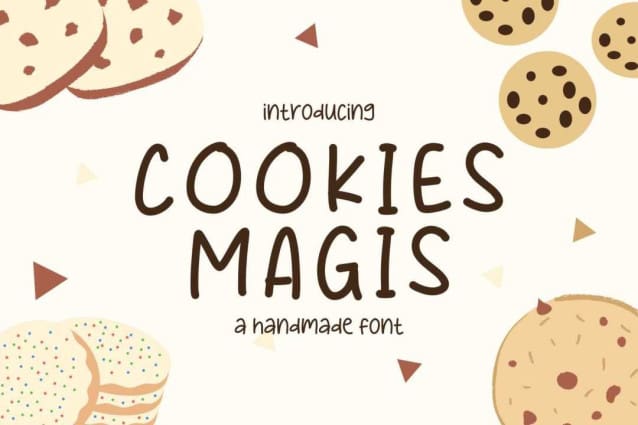
Cookies Magis Font
Cookies Magis Font, is a sweet and friendly handwritten font. Cute and fun, this font is ideal for writing wedding invitations, cards, or any other design that might need a fun touch!